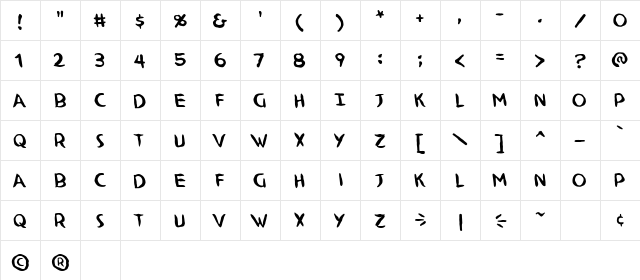
Ninjutsu BB Regular Font Preview
Ninjutsu BB Regular
Ninjutsu BB Regular Font Details
| Foundry | Nate Piekos. Blambot.com |
| Designer | Nate Piekos |
Design Context for Ninjutsu BB Typeface
Ninjutsu BB is a composed and adaptable typeface that performs quietly and consistently across a wide range of design contexts.